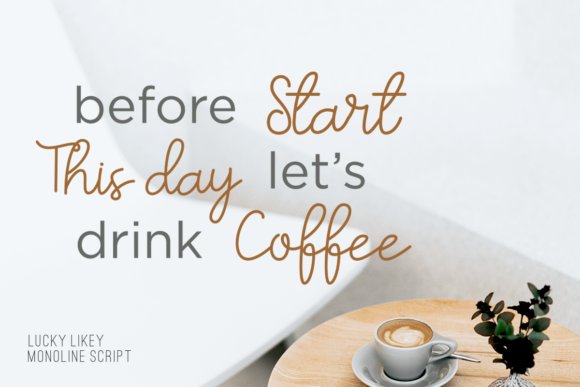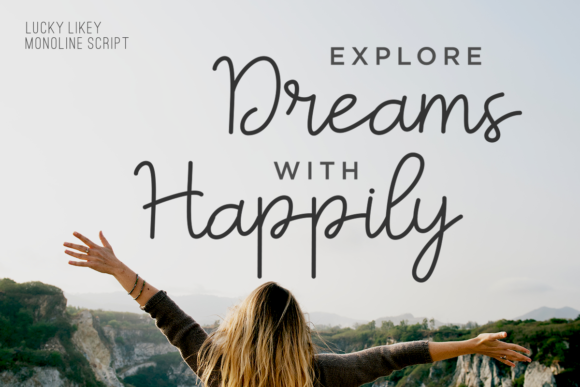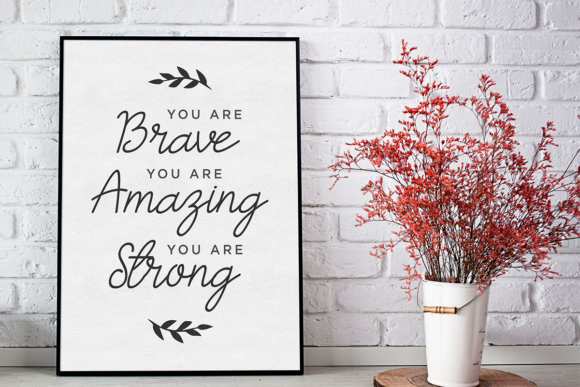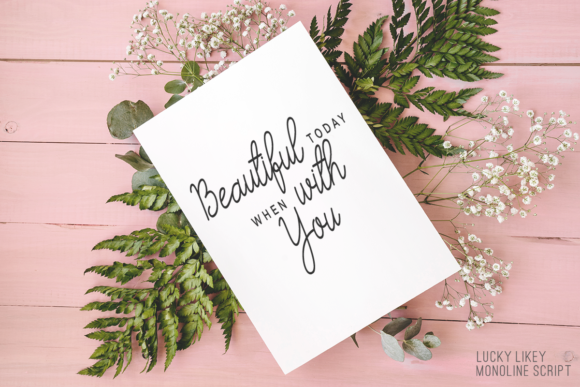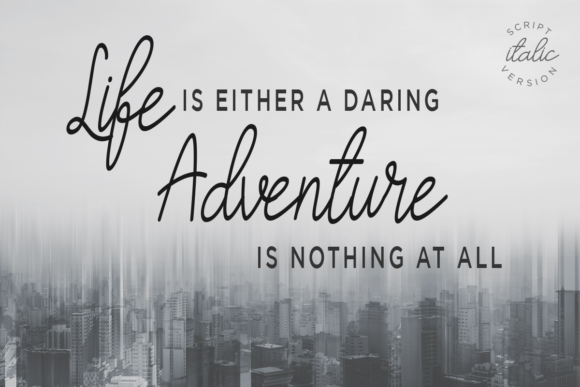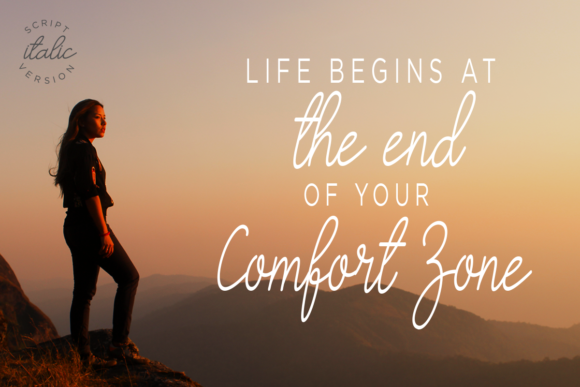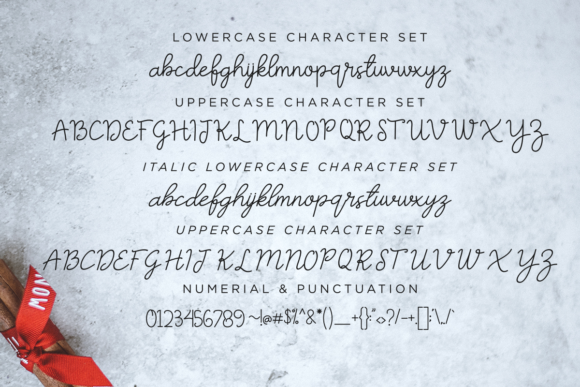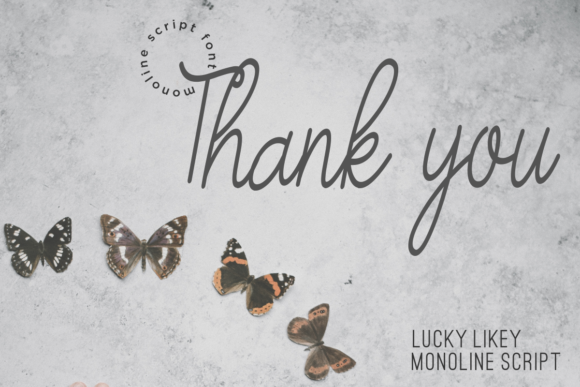
Lucky Likey Script Font
About Lucky Likey Script Font
The Lucky Likey is a beautiful mono-line script font. The goal was to create an easily legible script font which would work for a wide variety of purposes. It retains the personality of the designer within the characters as they were initially based there own handwriting and later tidied up to create a set of consistent characters. Having that handmade feel and personal touch certainly gives it a hint of authenticity, perfect for any of your upcoming projects. Don’t miss out!